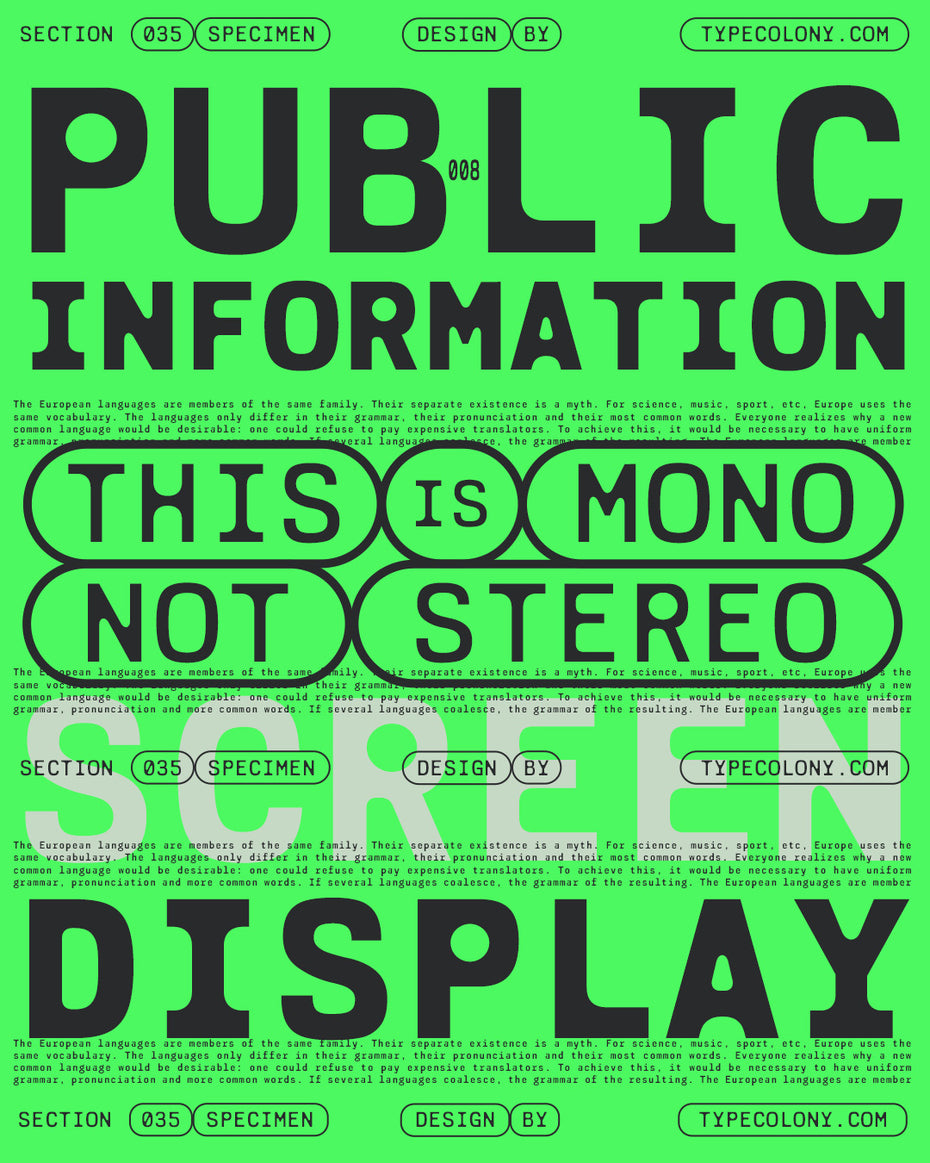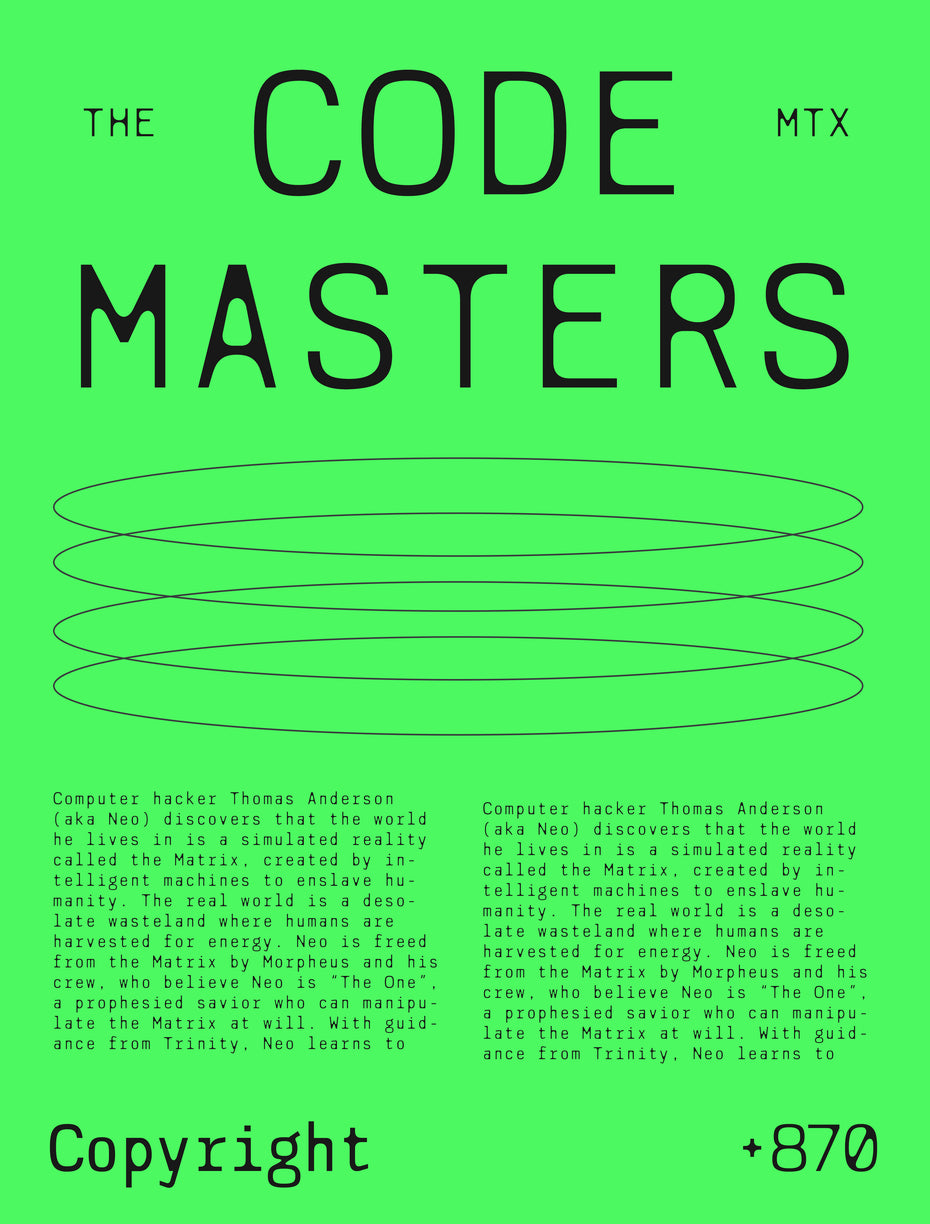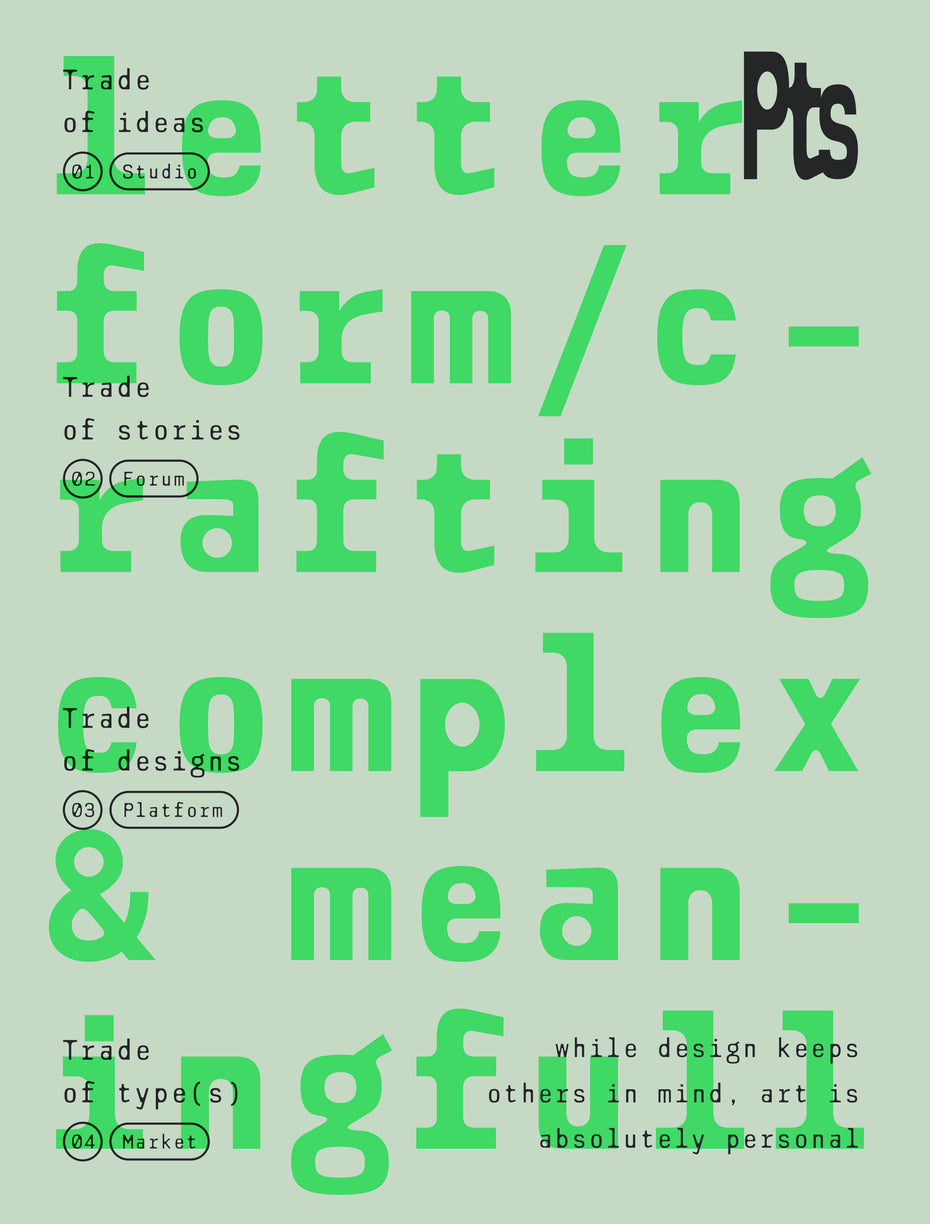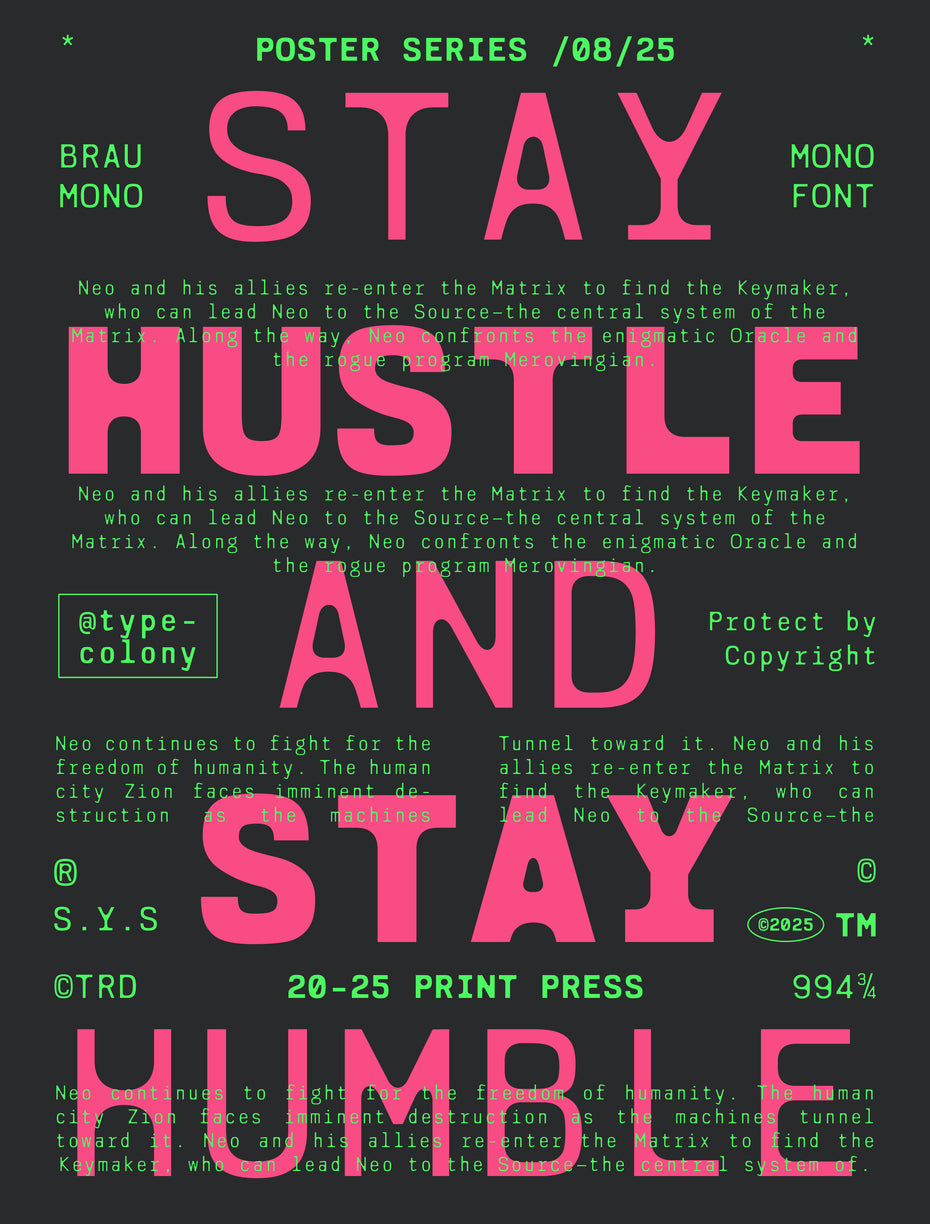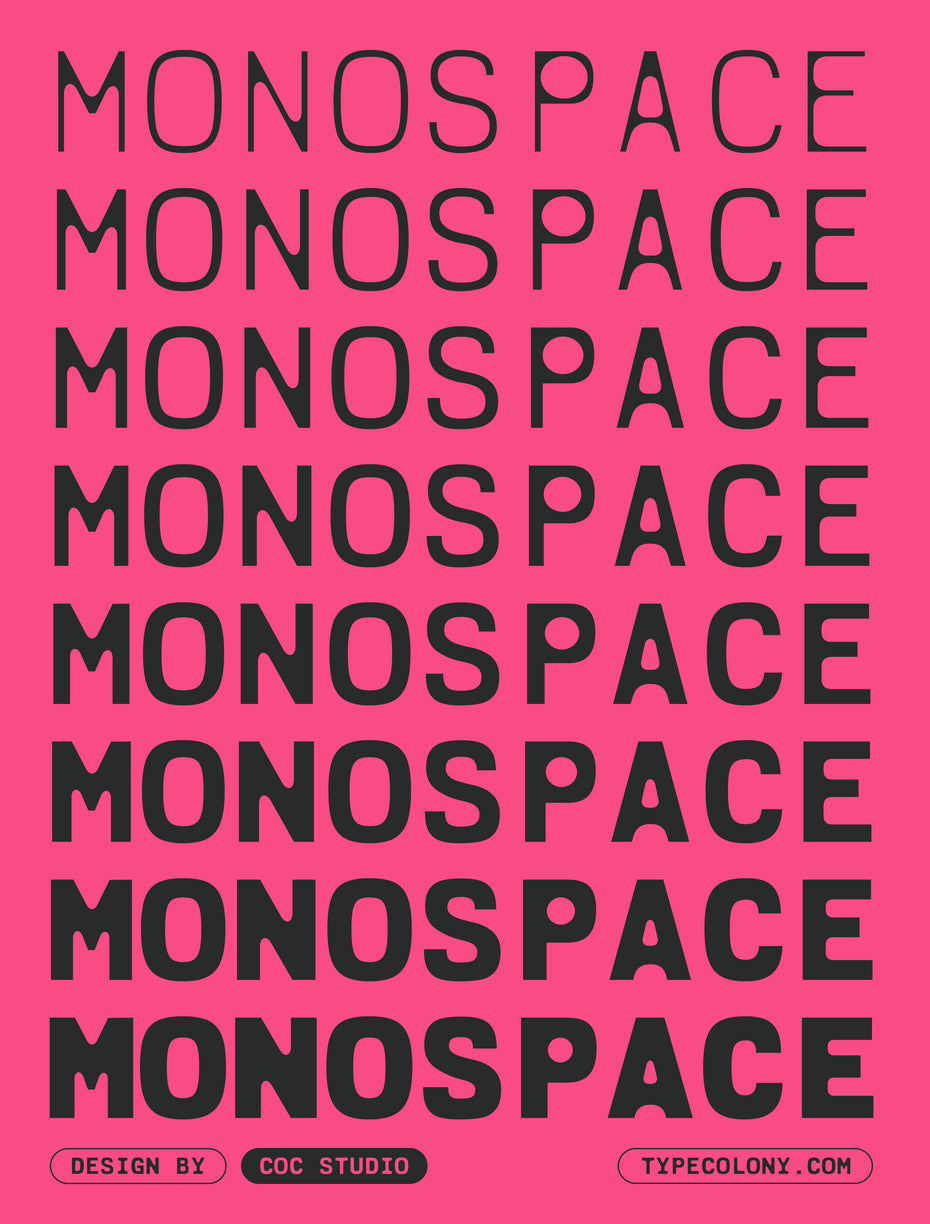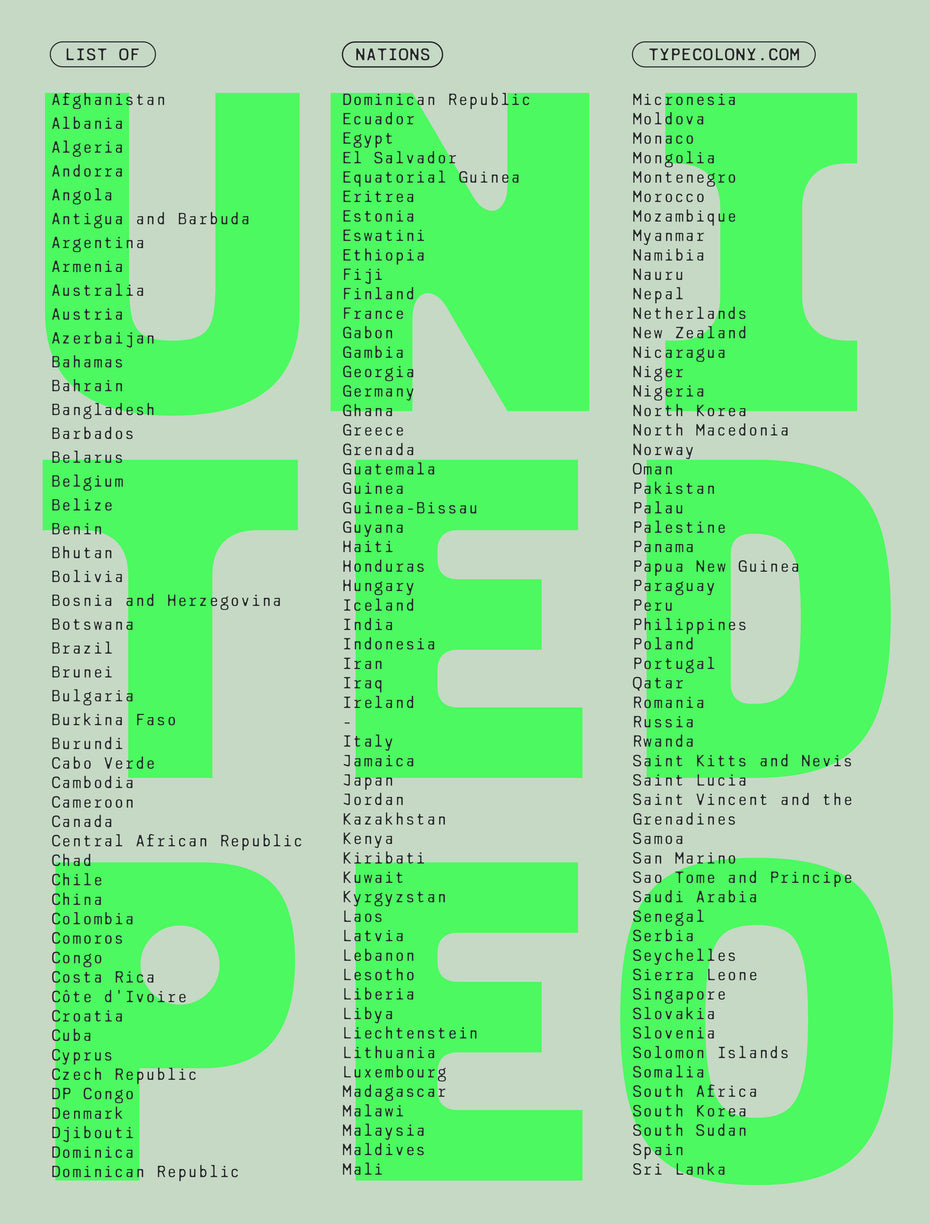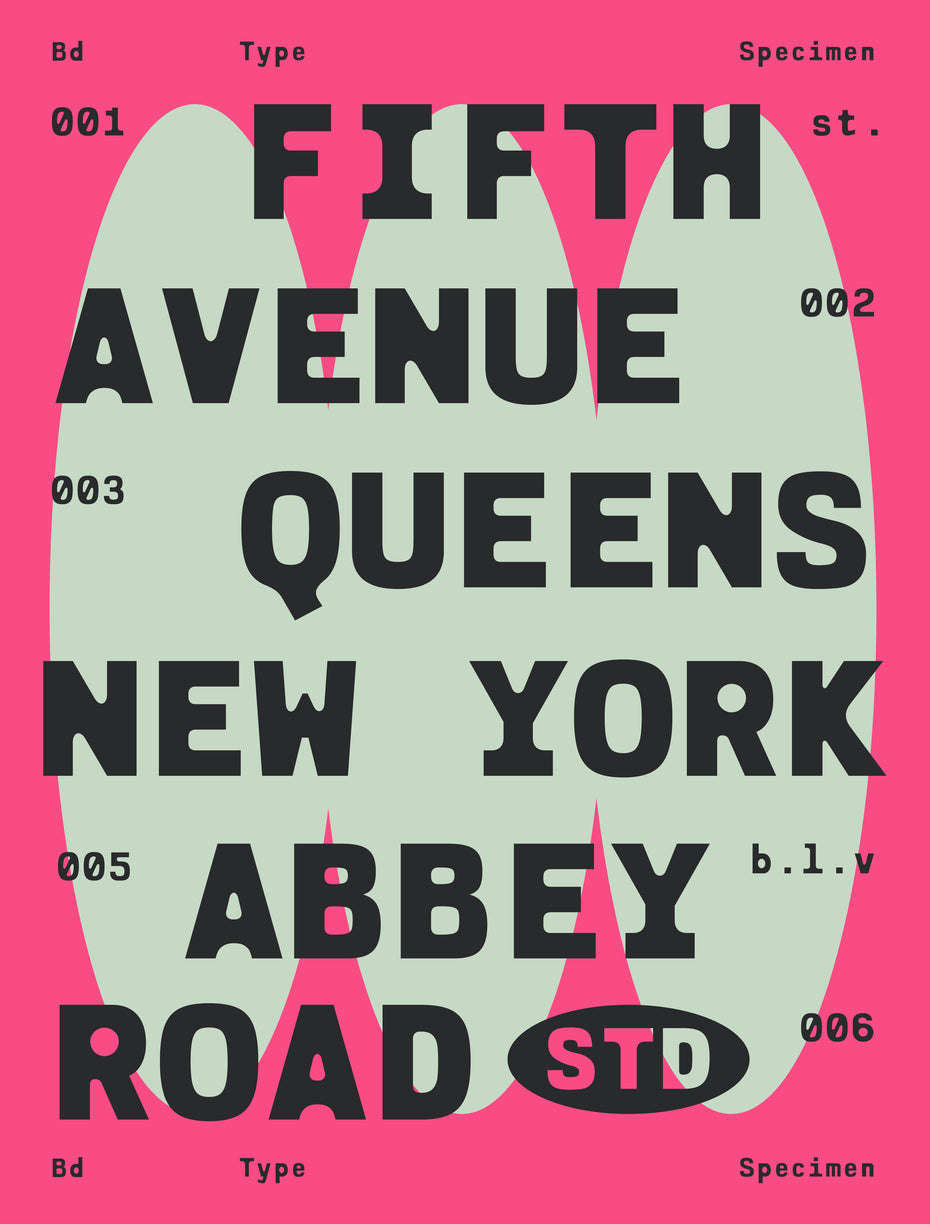
Brau Mono
Brau Mono monospaced display typeface specimen on a bright green poster showing both heavy display headlines and small body text, with rounded capsule labels reading "This is mono not stereo" — demonstrating versatility between editorial and technical use Typecolony Brau Mono Specimen Poster Brau Mono monospaced typeface on an editorial poster specimen listing all world nations in three columns, with large display lettering "United People" in the background, demonstrating language coverage with diacritics and small-size readability Brau Mono monospaced typeface on a cyberpunk-style poster specimen, layering large pink display headlines "Stay Hustle and Stay Humble" with dense green technical body text, demonstrating mono use for tech-noir and hacker aesthetic design Brau Mono monospaced slab serif typeface specimen demonstrating typewriter-style terminals and editorial mono layout, with manifesto text "Letterform crafting complex & meaningful" annotated with numbered studio, forum, platform, and market labels Typecolony - Brau Mono Font Specimen Poster